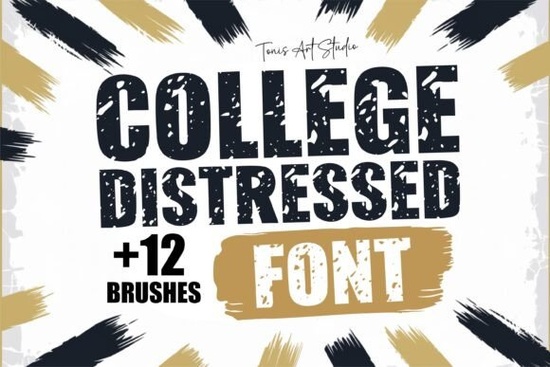
If you’ve ever tried to create a vintage college T-shirt, a retro sports poster, or a grunge-inspired logo and struggled to find the right typeface, the College Distressed Font might be exactly what your project needs. This bold, weathered font captures that authentic, time-worn look like it’s been pulled straight from a 1980s campus flyer or a well-loved varsity jacket. It’s especially useful for designers and crafters who want to add instant character without spending hours layering textures manually.
What sets this font apart is its handcrafted distressing. Unlike digital effects that can feel too uniform or artificial, the College Distressed Font features organic rough edges and subtle imperfections that mimic real aging. That makes it ideal for projects where authenticity matters whether you’re designing merchandise for a local team, creating signage for a themed event, or personalizing apparel with a nostalgic vibe.
Who is this font best suited for?
This typeface works well across a range of creative roles:
- Print-on-demand sellers looking for fonts that stand out in crowded marketplaces like Etsy or Redbubble.
- Crafters using Cricut or Silhouette machines who need clean vector files (DXF, SVG, EPS) for precise cutting.
- Small business owners building retro-themed branding think coffee shops, barbershops, or boutique gyms with a throwback aesthetic.
- Graphic designers working on posters, stickers, or social media graphics that call for a rugged, masculine energy.
How does it compare to other slab serif fonts?
The College Distressed Font falls into the broader category of slab serif typefaces but with a twist. While classic slab serifs like Rockwell or Courier offer clean, geometric lines, this one leans into decay and texture. If you enjoy fonts with structural weight but want something less polished, you might also like exploring options like the slab serif fonts designed for vintage college themes or the bold game-day styles used for sports events and tailgating gear.
Unlike many free distressed fonts that lack full character sets or consistent spacing, this one includes uppercase letters (A–Z), numbers, and common symbols so you won’t hit roadblocks mid-project. Plus, the inclusion of 12 bonus grunge brushes gives you extra control. You can layer these brushes over text or backgrounds in Photoshop to amplify the worn effect, making each design feel uniquely aged.
What kinds of projects work best with this font?
Thanks to its versatile file formats and rugged style, the College Distressed Font shines in tactile, physical applications:
- T-shirts and hoodies – especially for school spirit wear, alumni events, or gym merch.
- Sublimation prints – the high-resolution vectors ensure crisp output on mugs, phone cases, and metal signs.
- DIY wood signs or wall art – use the DXF files with your CNC machine or laser cutter.
- Event posters and flyers – perfect for homecoming, rivalry games, or retro-themed parties.
- Stickers and decals – the distressed edges help designs blend naturally with textured surfaces like toolboxes or skateboards.
One thing to keep in mind: because of its heavy texture, it’s best used at larger sizes. Tiny text may lose legibility, so reserve it for headlines, logos, or short phrases rather than body copy.
- ✅ Do you need a bold, readable font with vintage grit? This fits.
- ✅ Are you working on physical products (apparel, signage, crafts)? The included SVG/DXF files will save time.
- ✅ Do you want to customize the distress level? Use the 12 bonus brushes to fine-tune the effect.
- ❌ Avoid if you need a clean, modern sans-serif or minimalist typeface.
If your next project calls for that raw, nostalgic punch like something found in a dusty yearbook or peeling off an old locker the College Distressed Font delivers without overcomplicating your workflow. Just install, type, and let the texture do the storytelling.